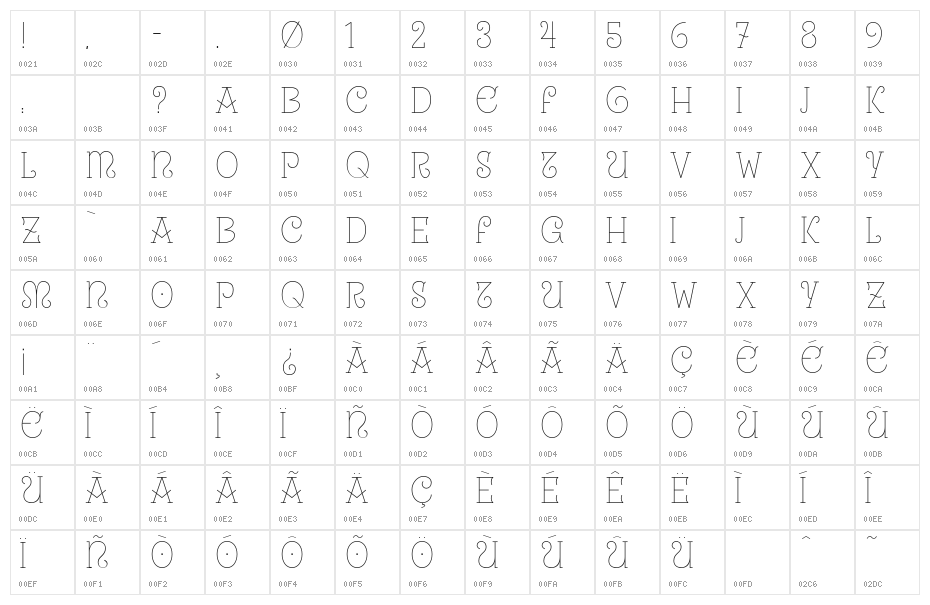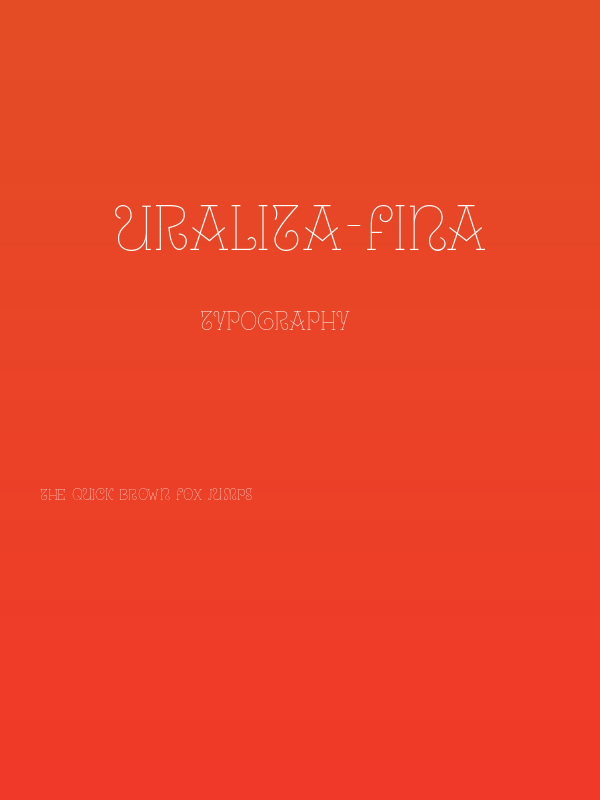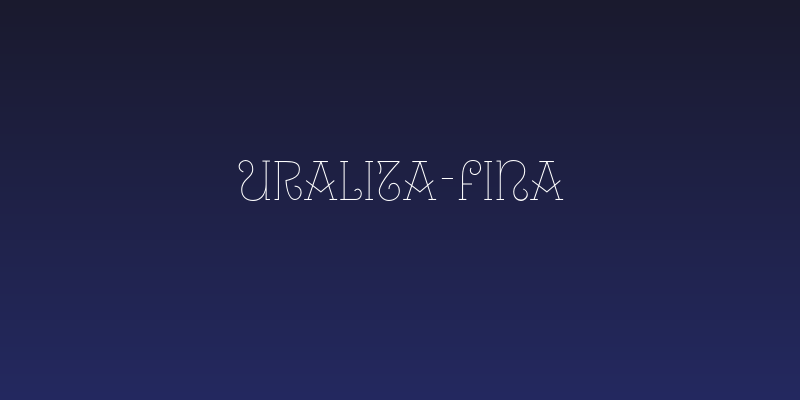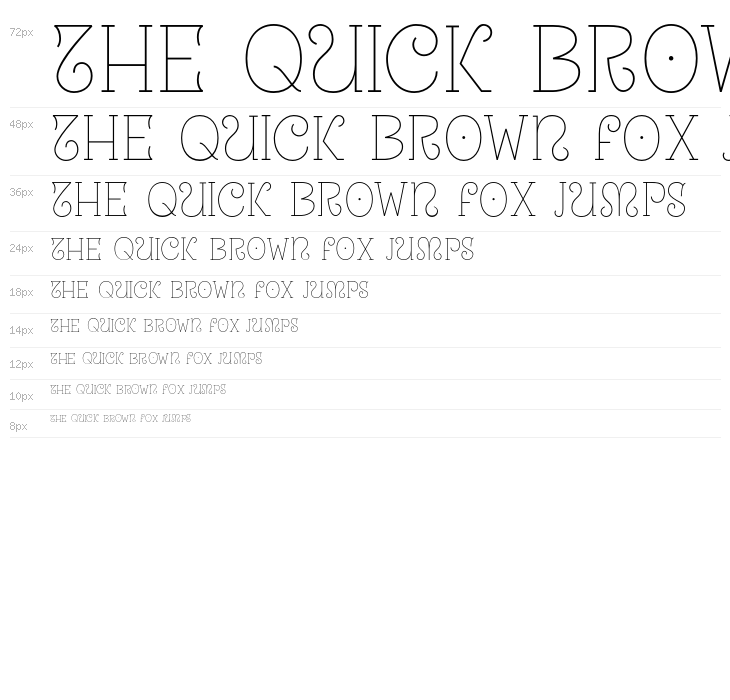
Uralita-Fina Font
Uralita-Fina Description
This font features a unique and elegant design with a distinct decorative flair. Each character is crafted with a combination of thin lines and subtle curves, creating a sophisticated and artistic appearance. The uppercase letters exhibit a playful yet refined style, with some characters incorporating loops and swirls that add a touch of whimsy. The lowercase letters maintain a consistent design language, ensuring harmony across the typeface. Numbers are designed with the same attention to detail, offering a cohesive look. The special characters, including punctuation marks, are thoughtfully integrated, enhancing the font's overall aesthetic. This font is ideal for projects that require a touch of elegance and creativity.
Use CaseLogos, Invitations, Posters
Proposed ProjectsIdeal for wedding invitations, luxury branding, artistic posters, and creative editorial designs.